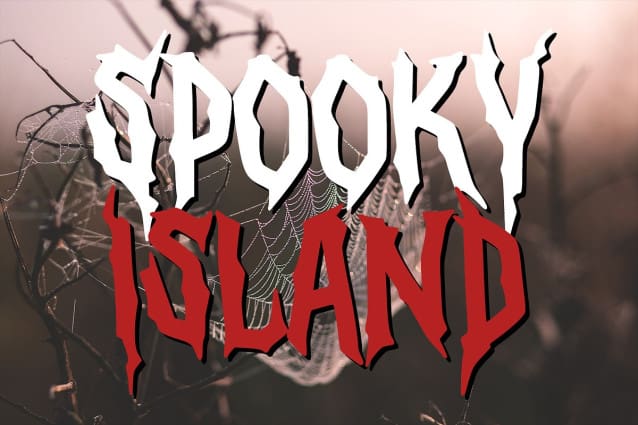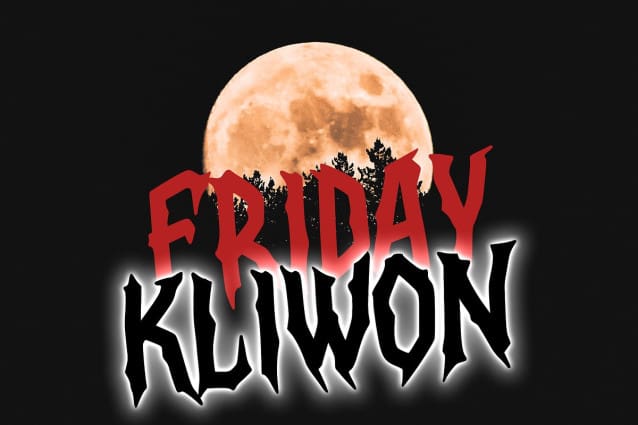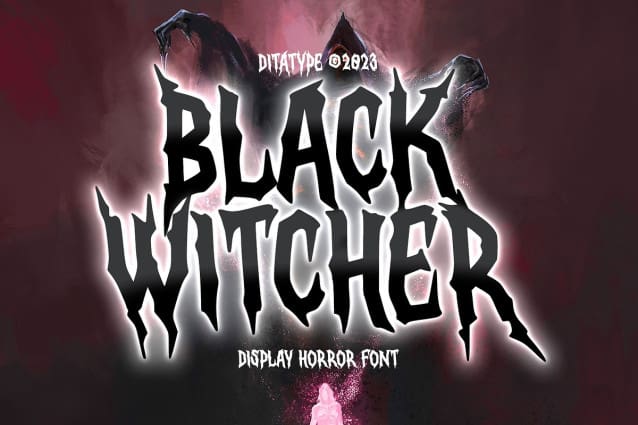
Black Witcher Font
Black Witcher Font is a spine-chilling display font that will cast a spell of fear on your designs. With its big letters and bold weight, this font demands attention and exudes an aura of dread. The horror theme is brought to life with meticulously crafted tree root details on each letter, adding a nightmarish and eerie touch to the font. Each letter in this font is bold and impactful, making a powerful statement in your designs. The large size of the letters enhances the font’s haunting presence.
The tree root details in Black Witcher give the font a sinister and otherworldly appearance, as if the letters are entangled with ancient and malevolent roots. These haunting details add a sense of mystery and foreboding, immersing the viewer into a world of dark and chilling horrors. For the best legibility you can use this font in the bigger text sizes.